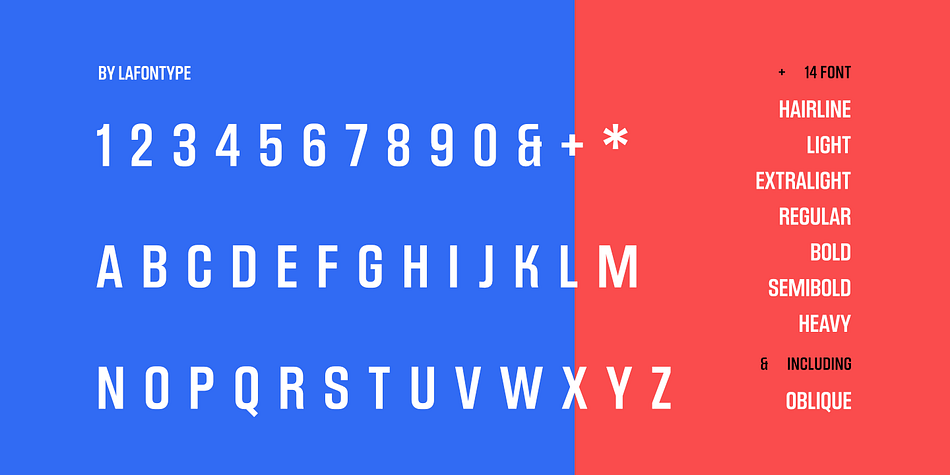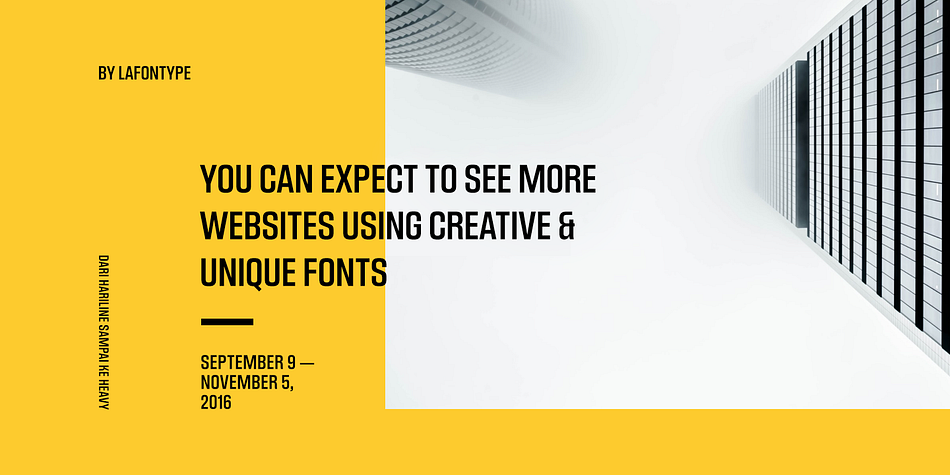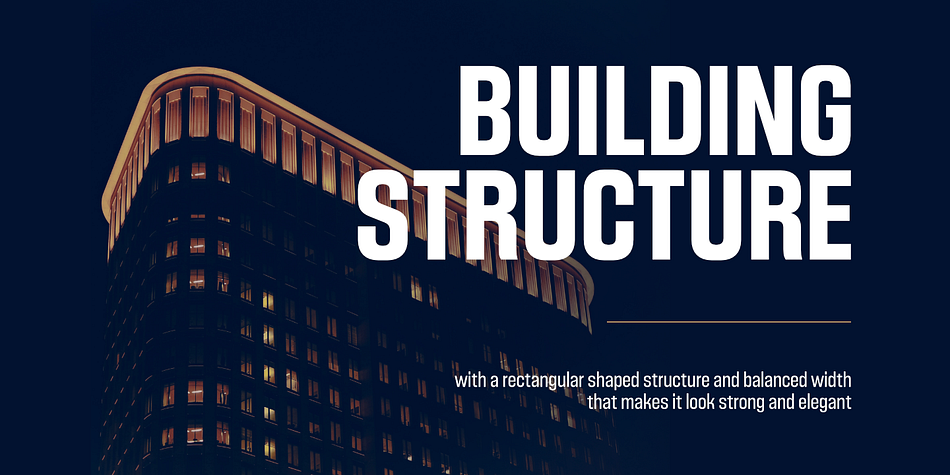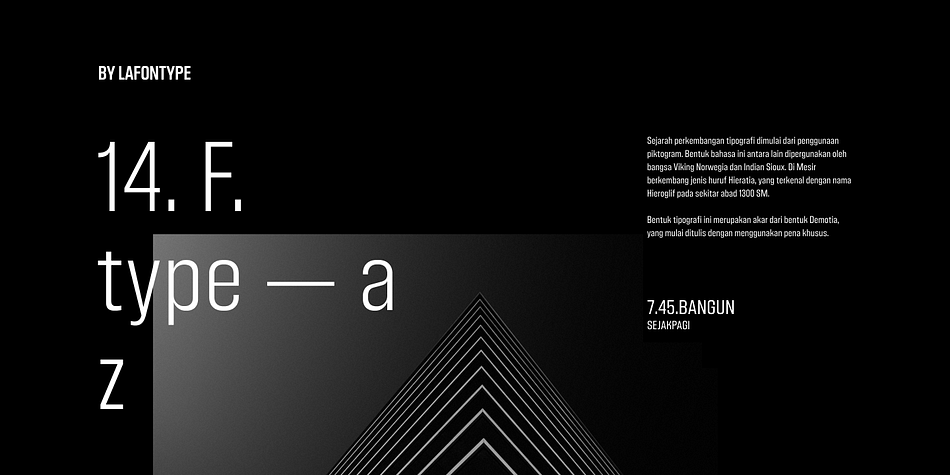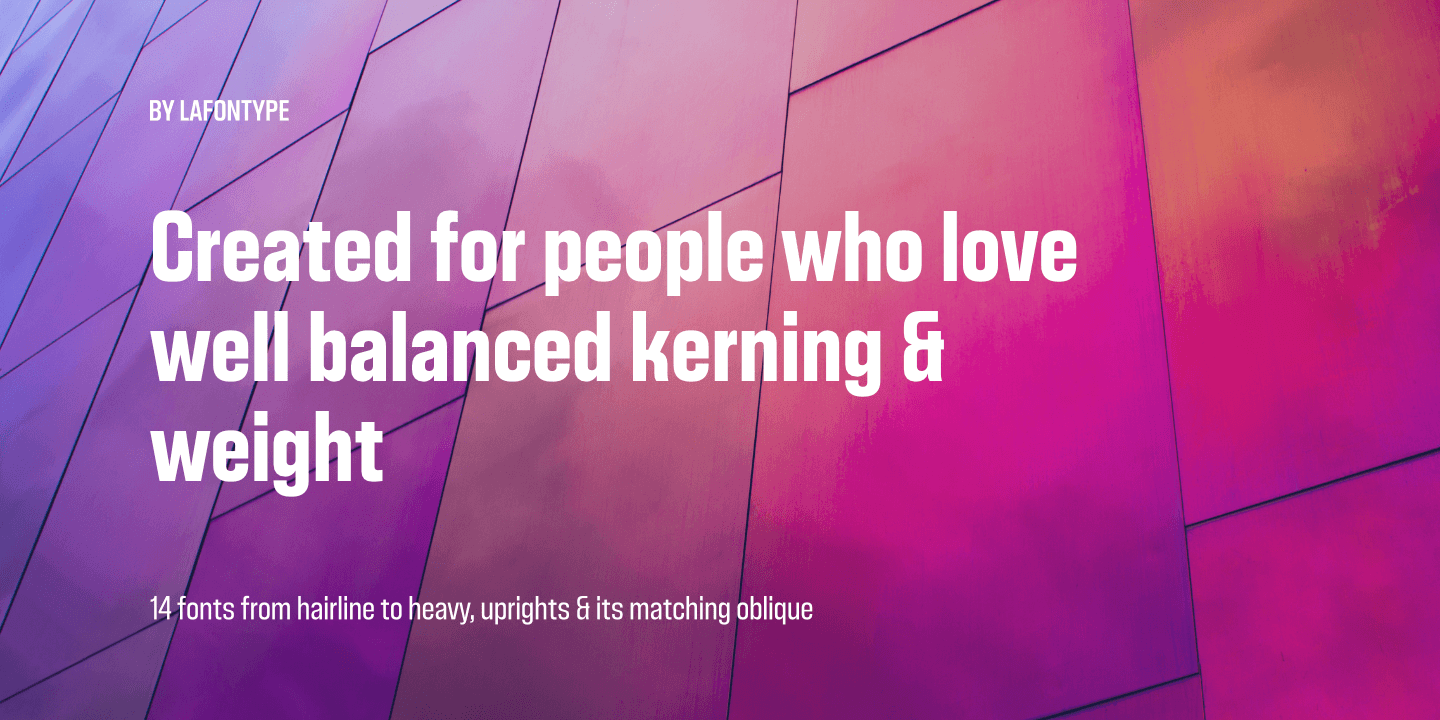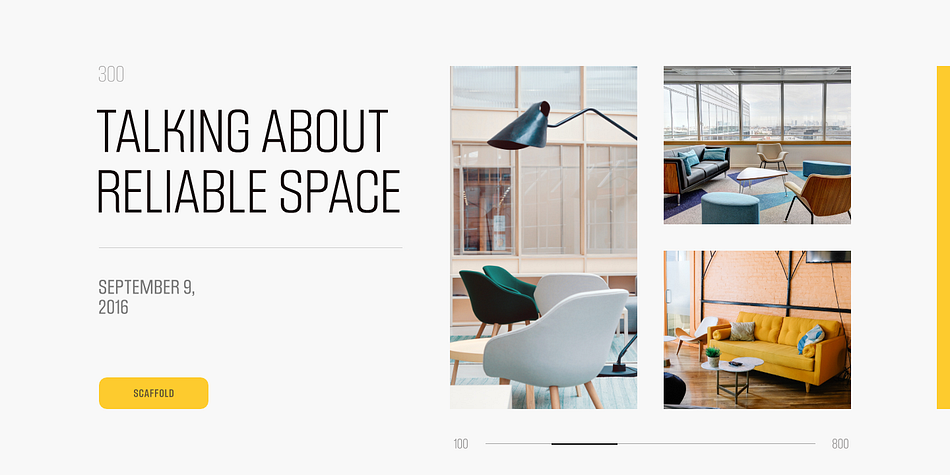
Designed by Anugrah Pasau, Scaffold is a sans serif font family. This typeface has fourteen styles and was published by Lafontype.
Scaffold is the sans serif family created for people who love well balanced kerning and weight. With a rectangular shaped structure and solid weight that makes it look strong and elegant. From hairline to heavy Scaffold comes with multiple languages and OpenType features such as ligatures, localized forms, fraction, ordinal, superscript, numerator, denominator and subscript.
Foundry | Lafontype |
Designer | Anugrah Pasau |